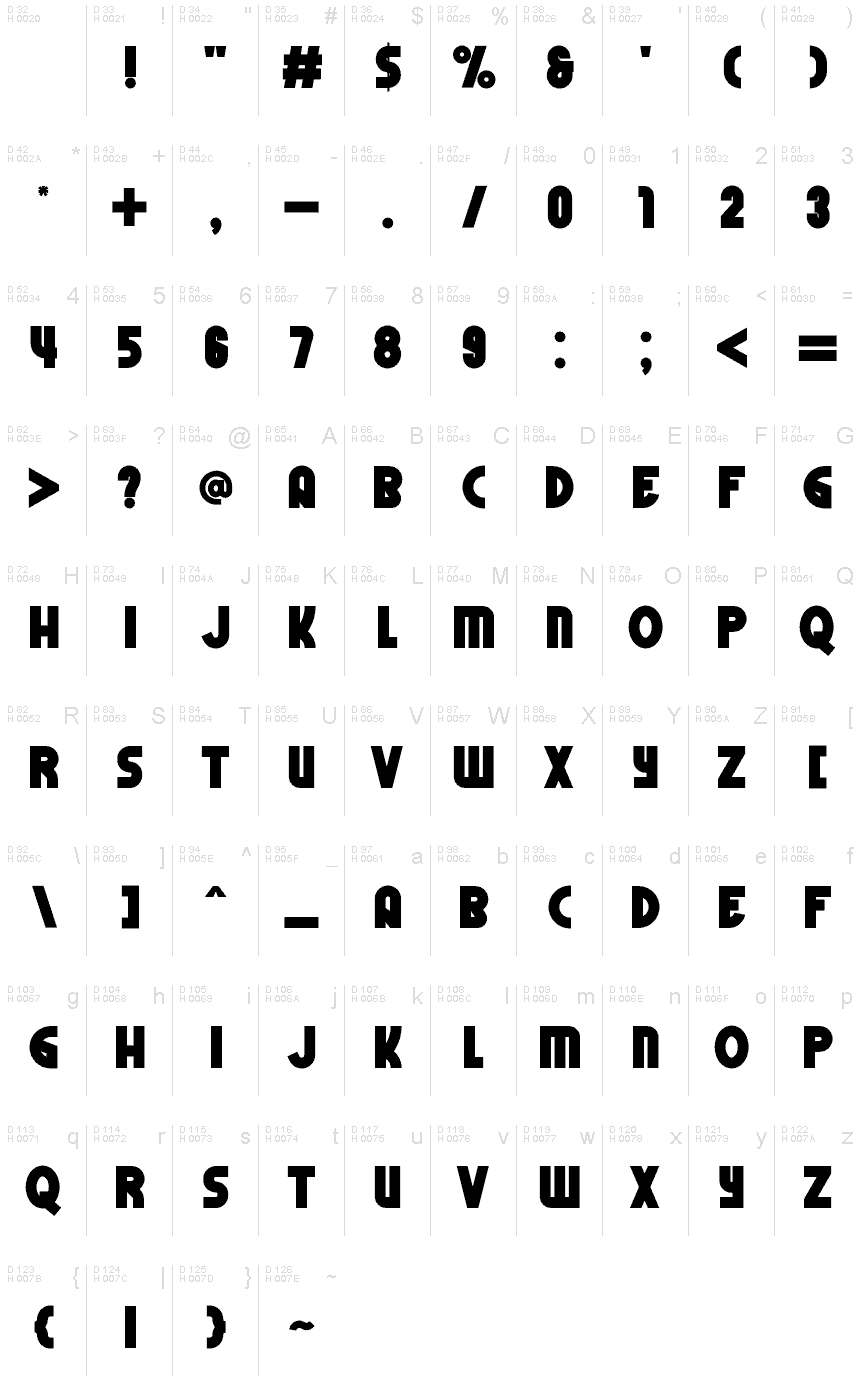
Gryzensa
Gryzensa font by Rvandtype is bold, confident, and indeed quite a piece of art. Its simple design features wide lines which create sober characters whose appearance remains fascinating. A moderate extent of creativity and professional craftsmanship was poured into the creation of this free display font. And to no surprise, it can fit in quite a few numerous designs where its charm can be used for the best.
Get creative with product designs as Gryzensa can look good on labels especially well. It’s suitable for poster and flyer designs, book/magazine cover title writing, headlines/subheadings, web design projects, advertising etc.